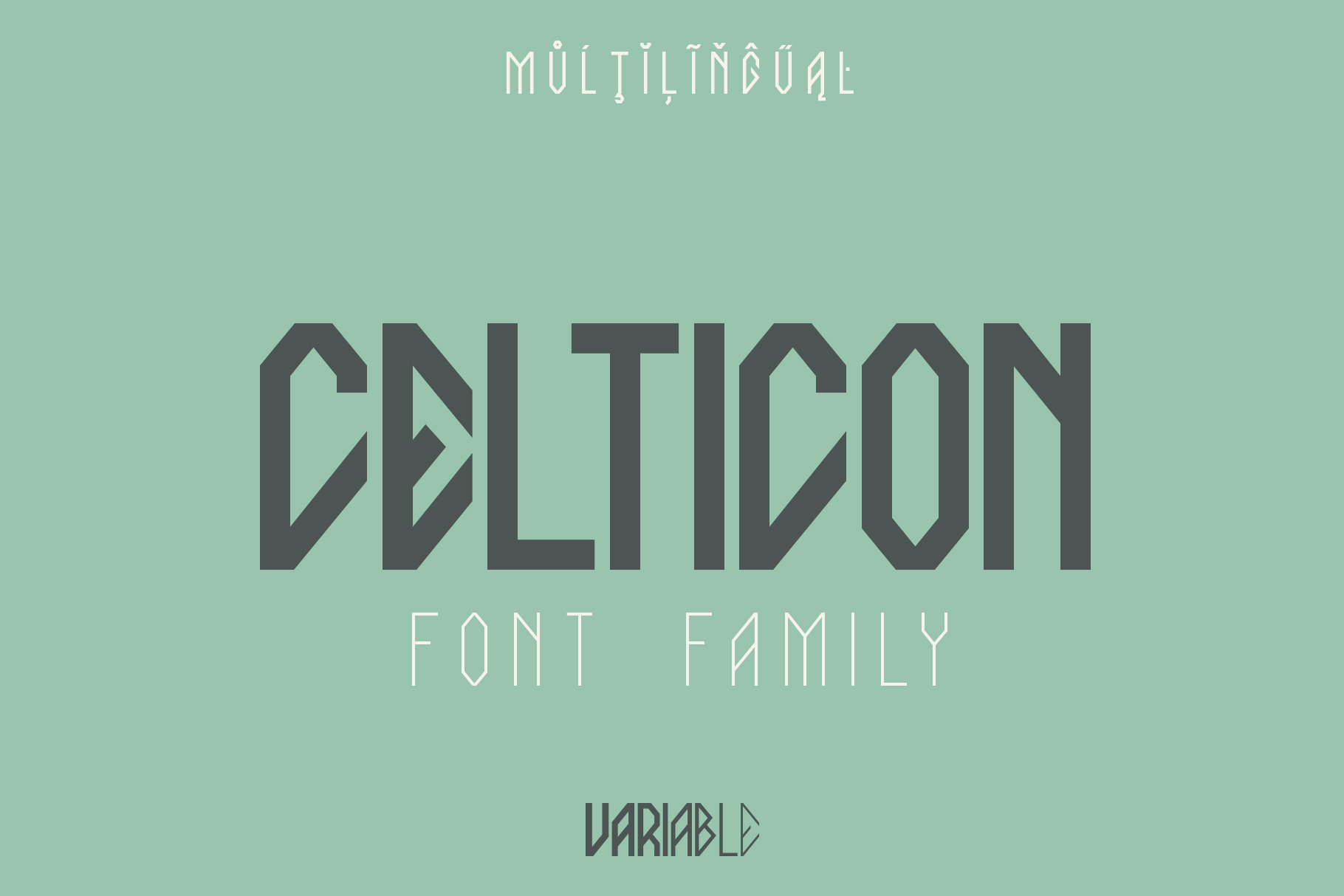
Celticon Font Family
Celticon Font Family create ancient celtic magic vikings' myths and gothic atmosphere and style. It is good looking as header and as text both. Celticon Font Family consists of three weights: Light, Regular and Bold.